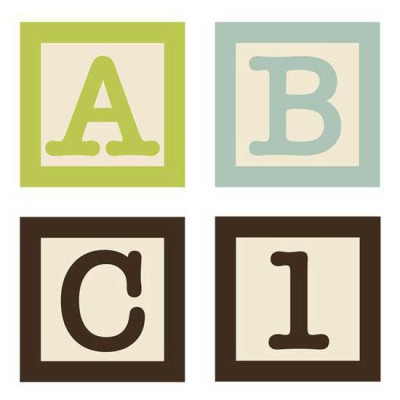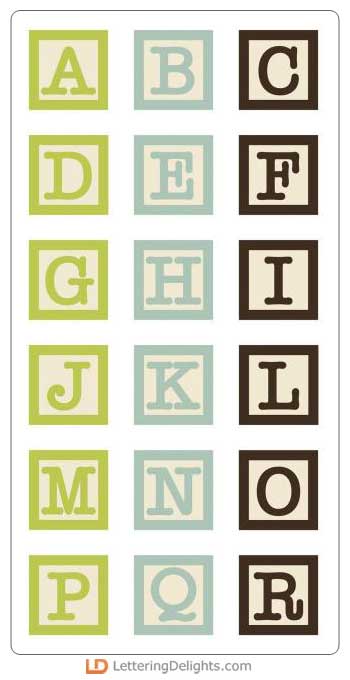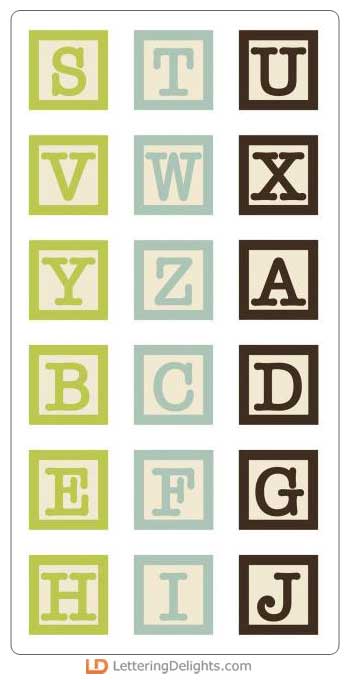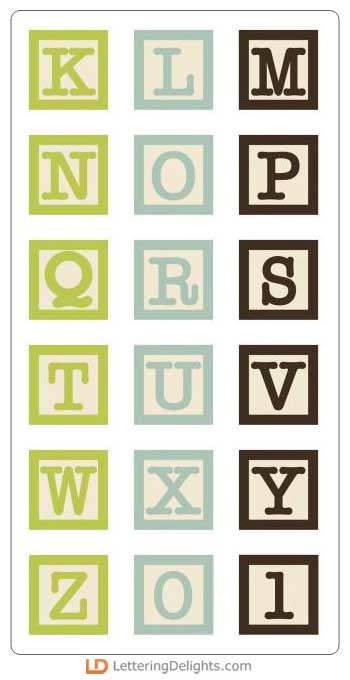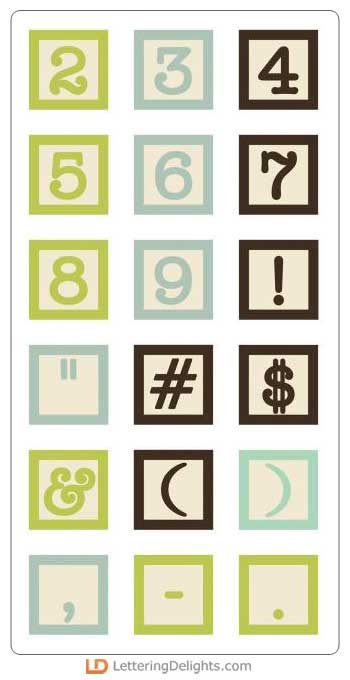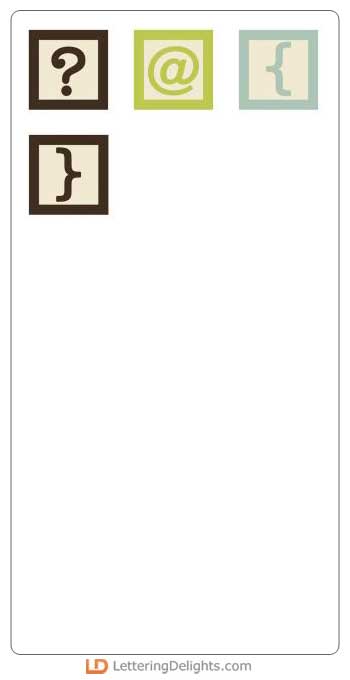
A picture may be worth a thousand words, but a word spelled out with toy blocks conjures up all sorts of tender feelings. Add an instant 'ahhhh' factor with the Cutie Patootie Boy or the Cutie Patootie Girl Alphabets.